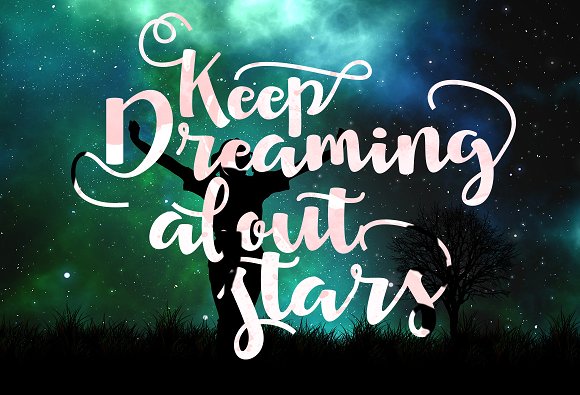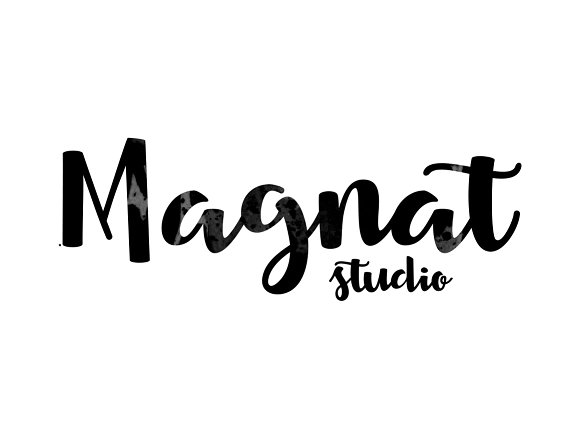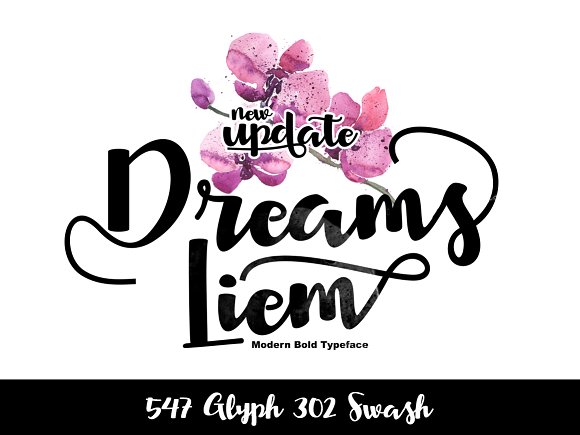
Dreams Liem Script Font
Dreams Liem is a Bold Hand Calligraphy, modern calligraphy wavy, which was created to meet the needs of your next design project. Dreams Liem, Can used for various purposes. such as the title, logo, correspondence, wedding invitations, letterhead, signage, labels, newsletters, posters, badges, t-shirt, etc.